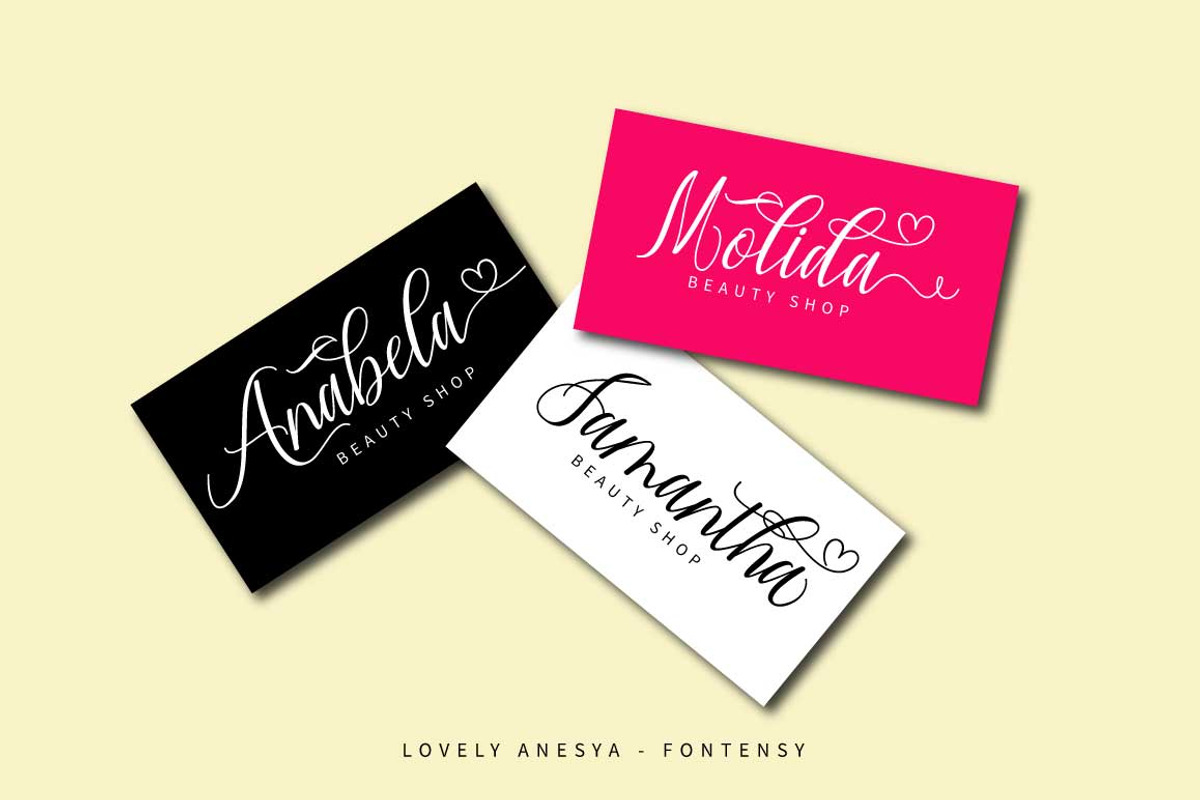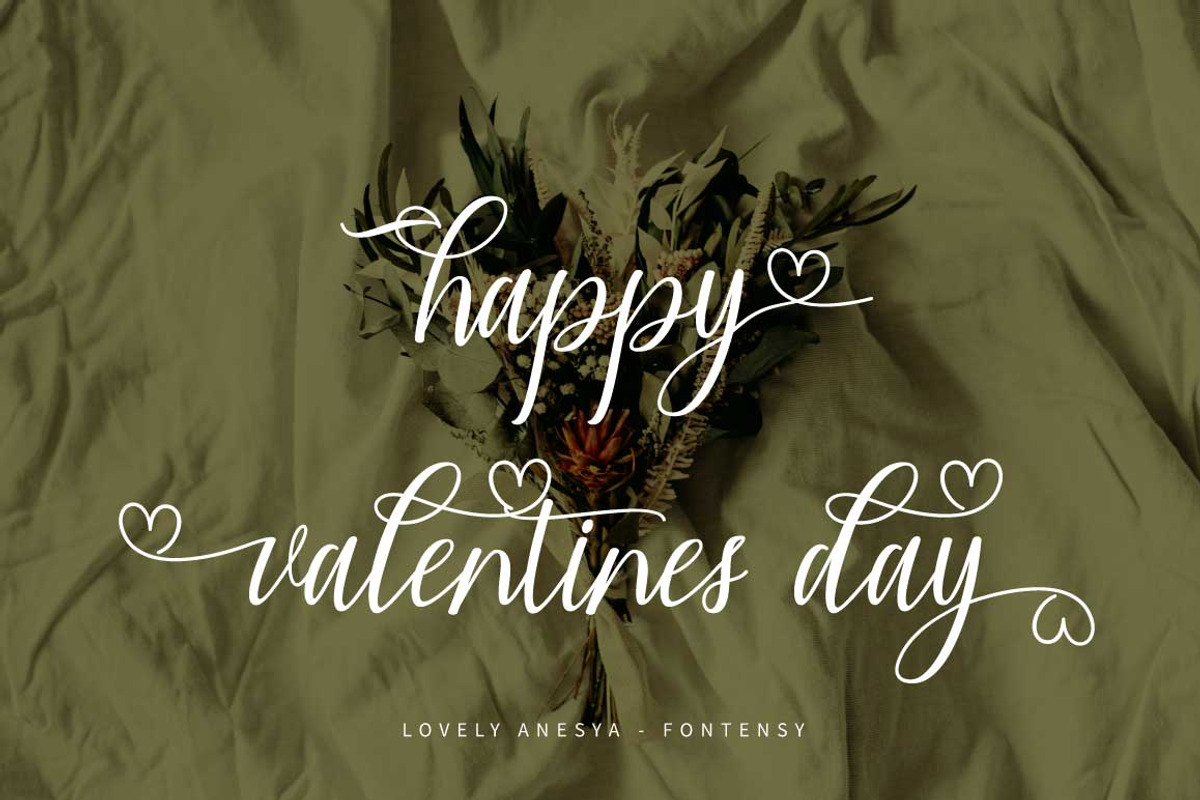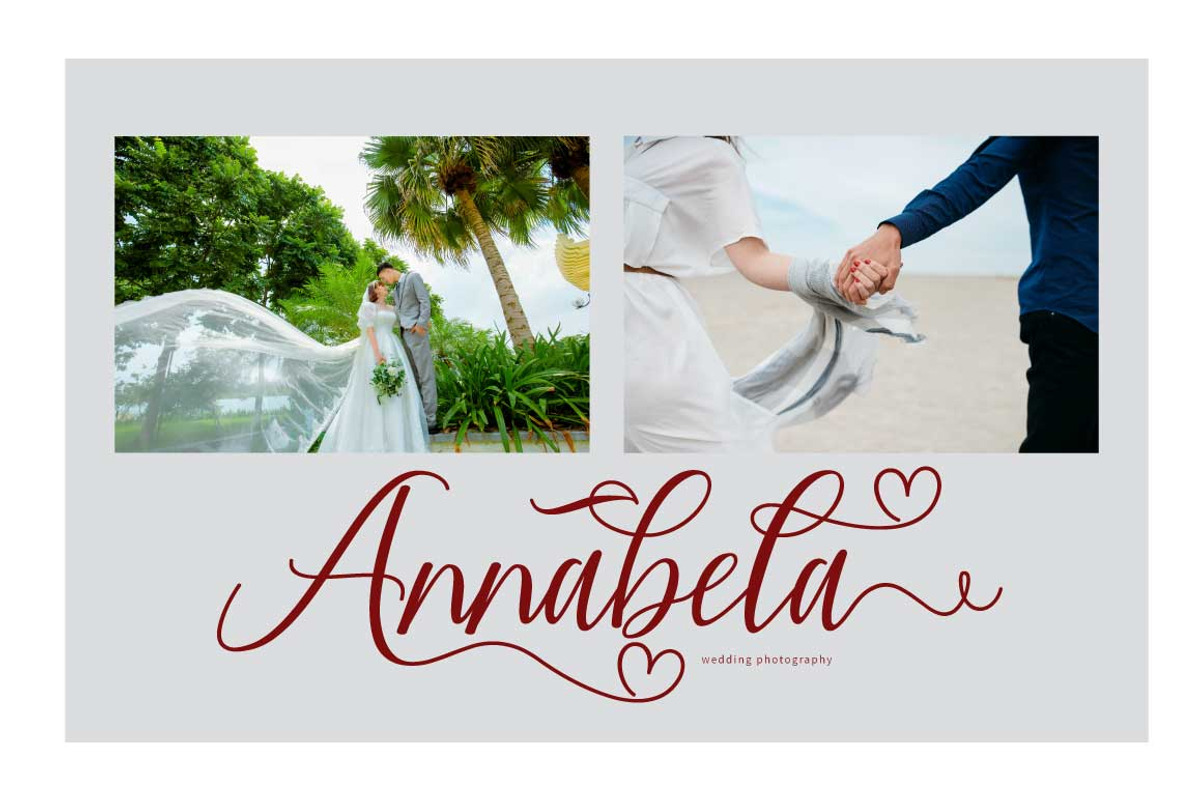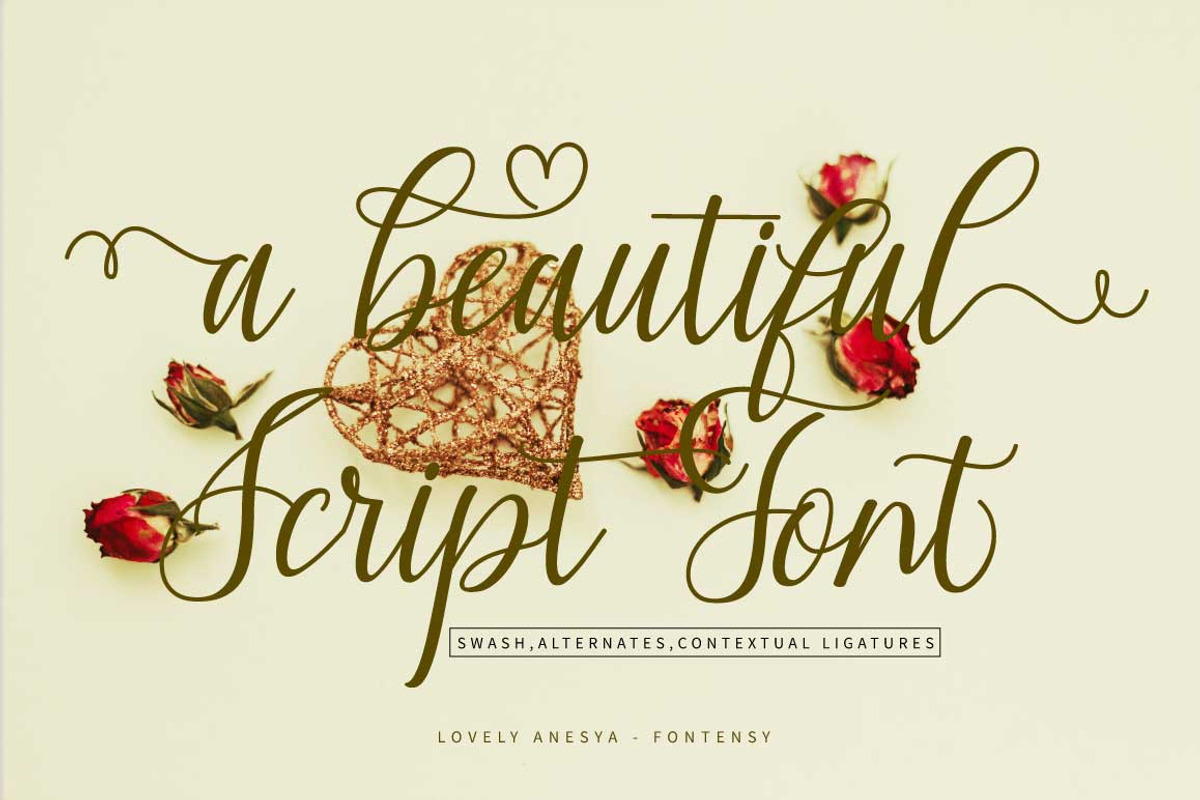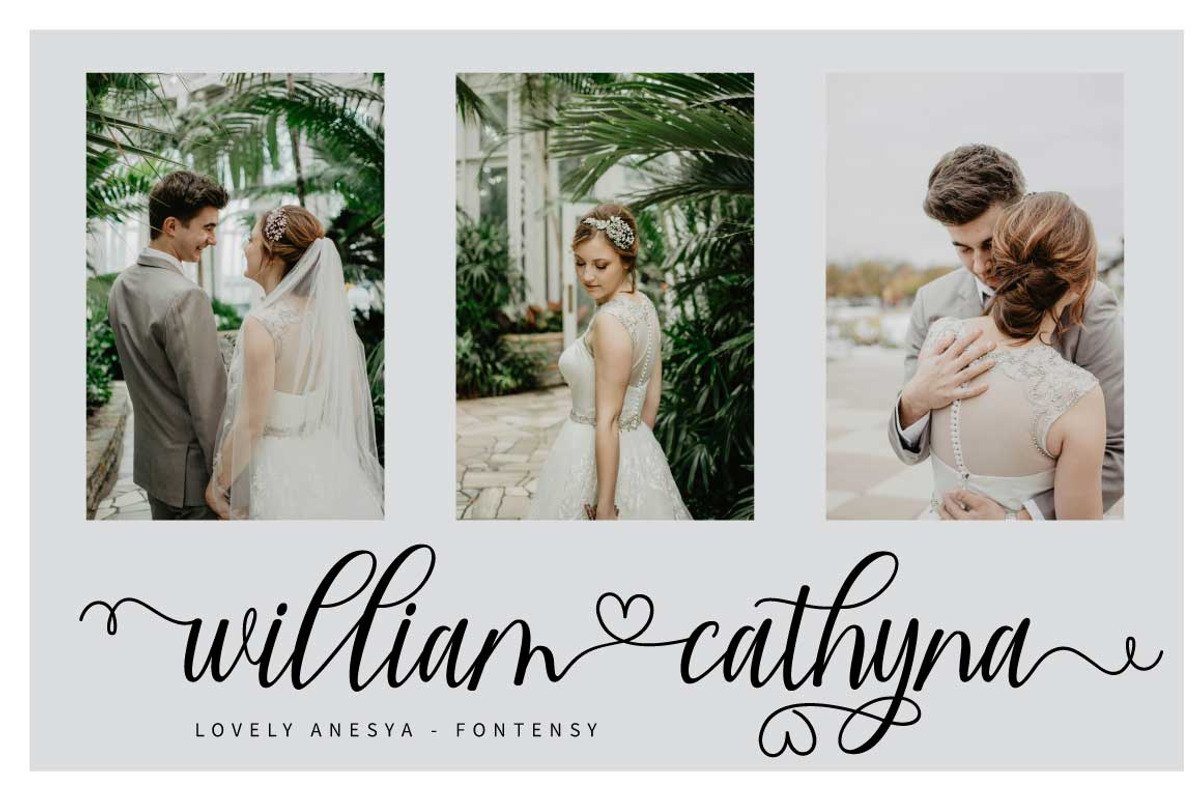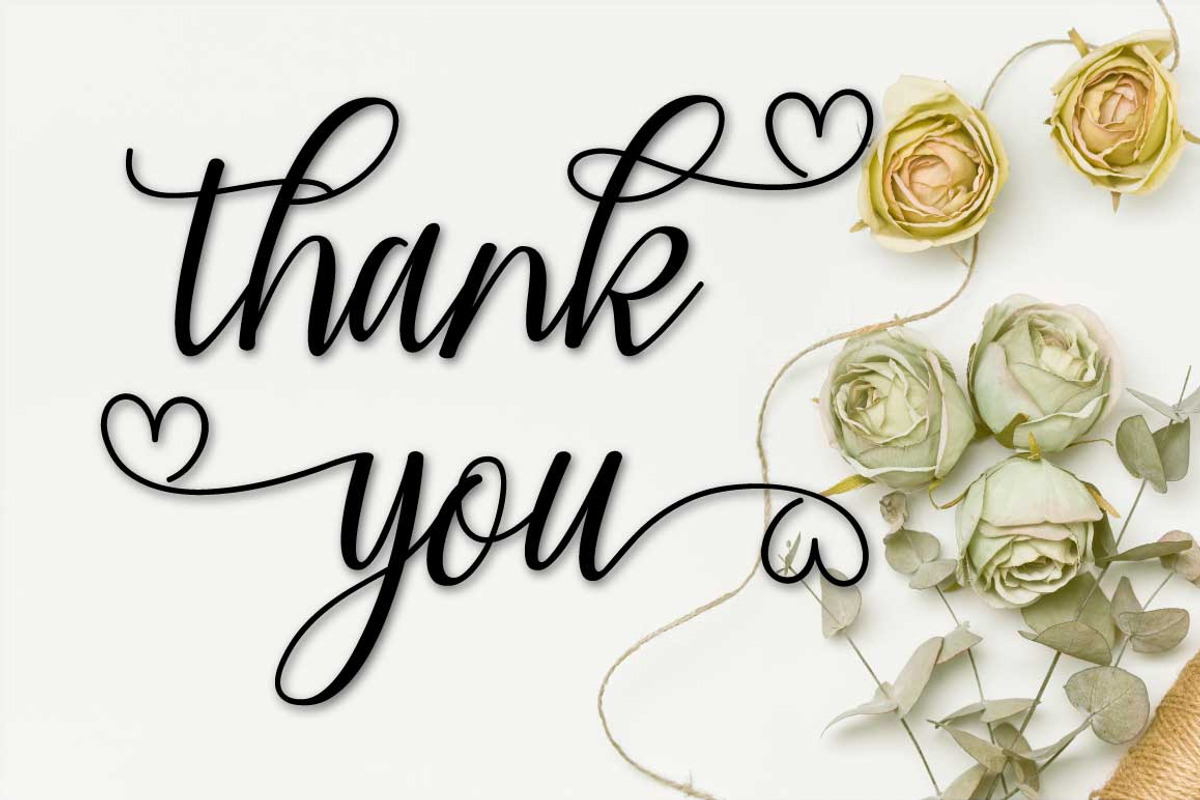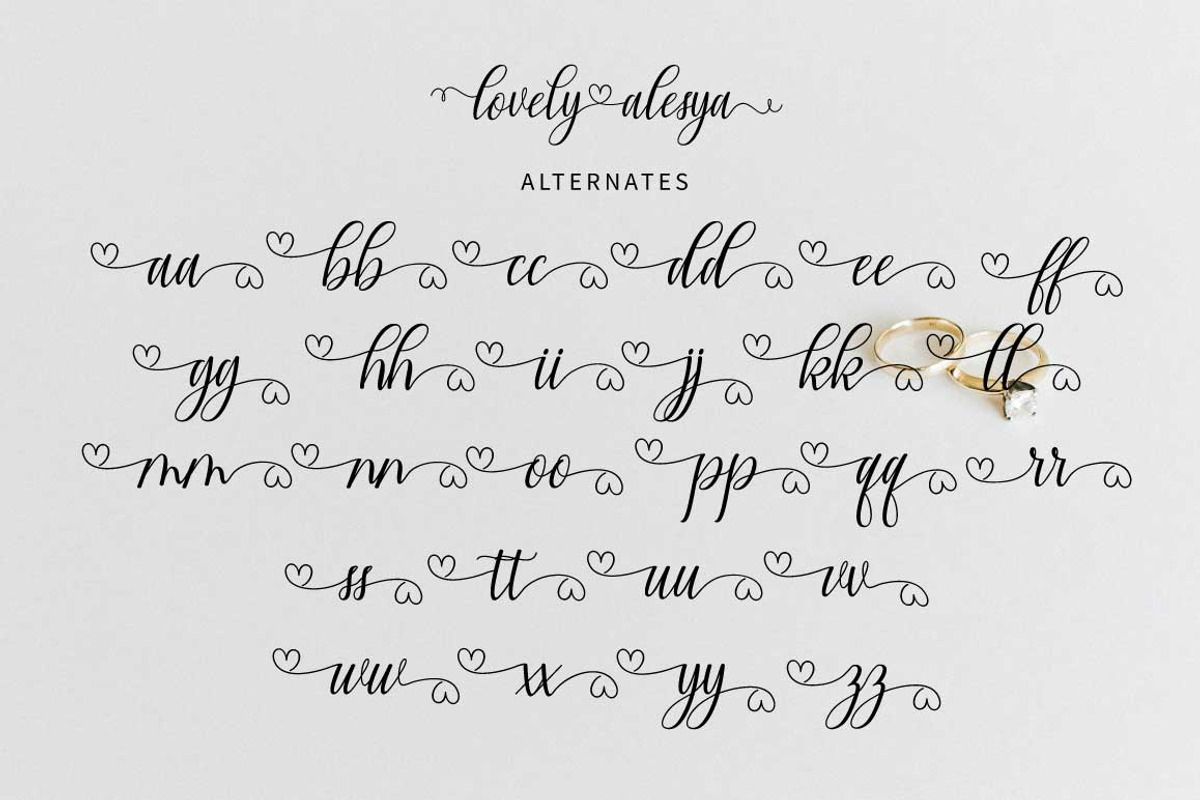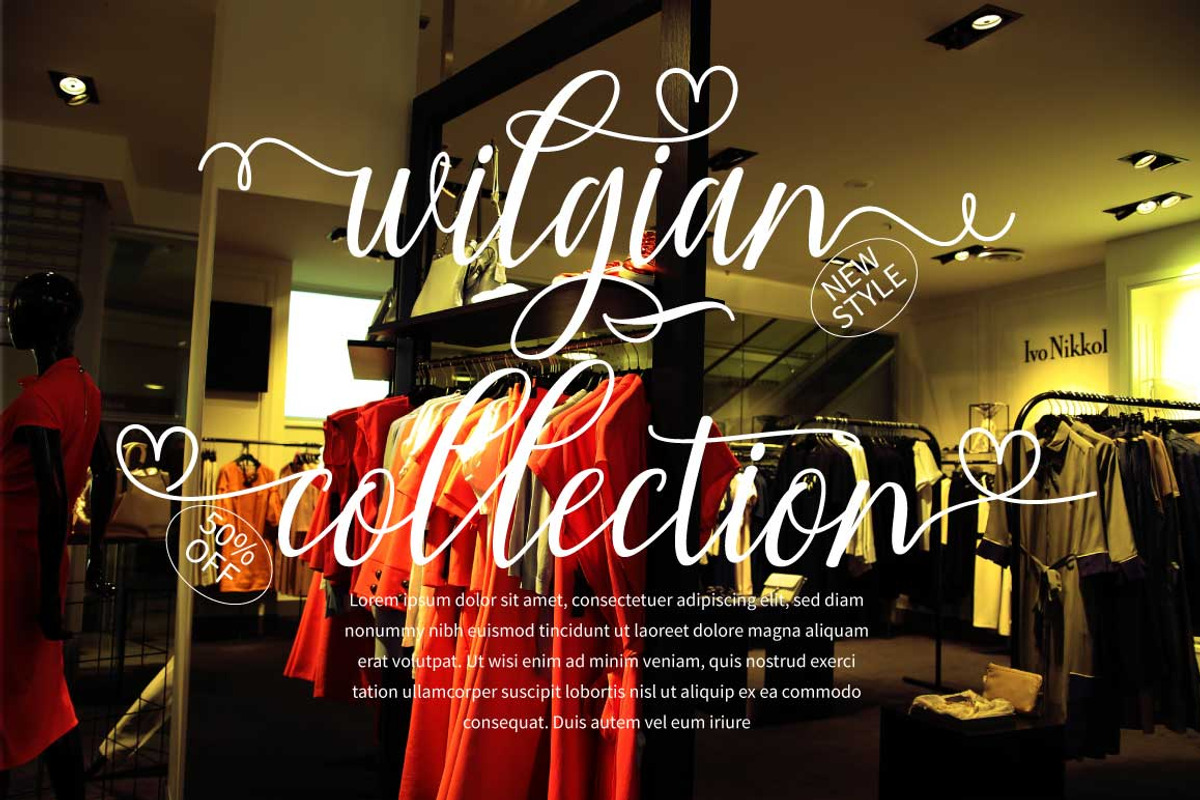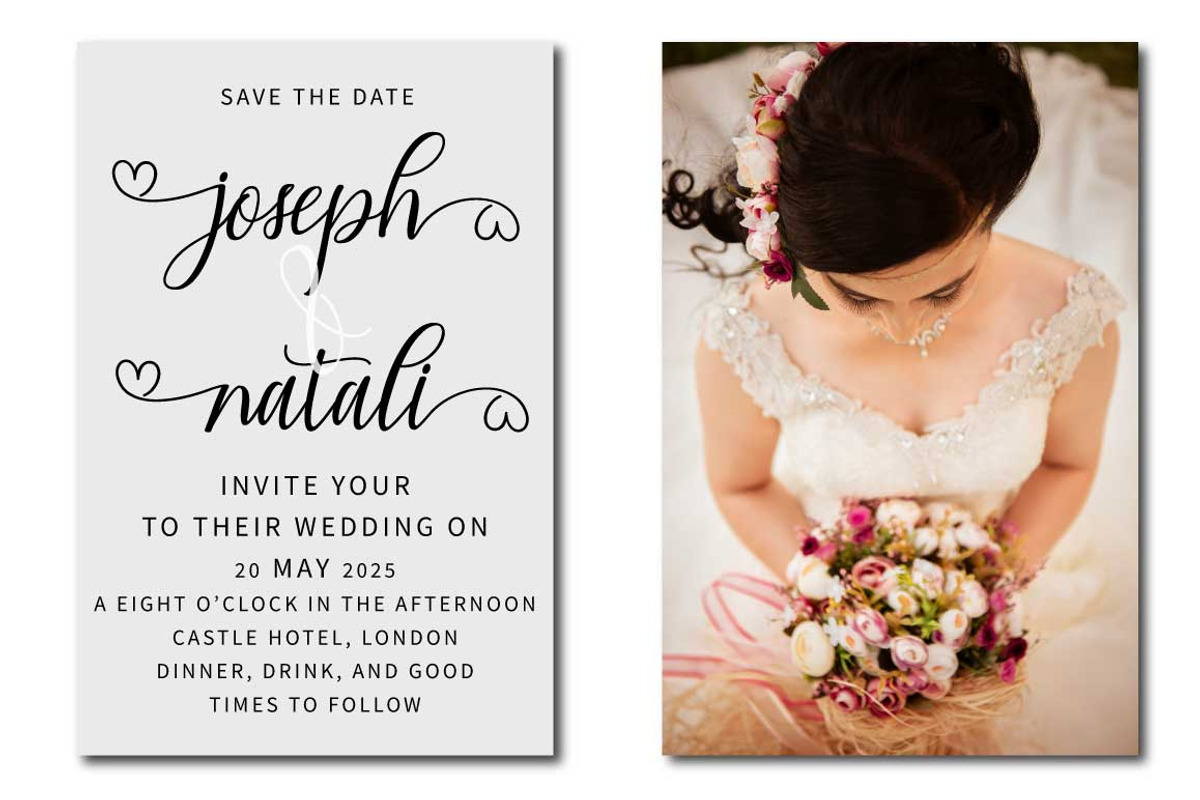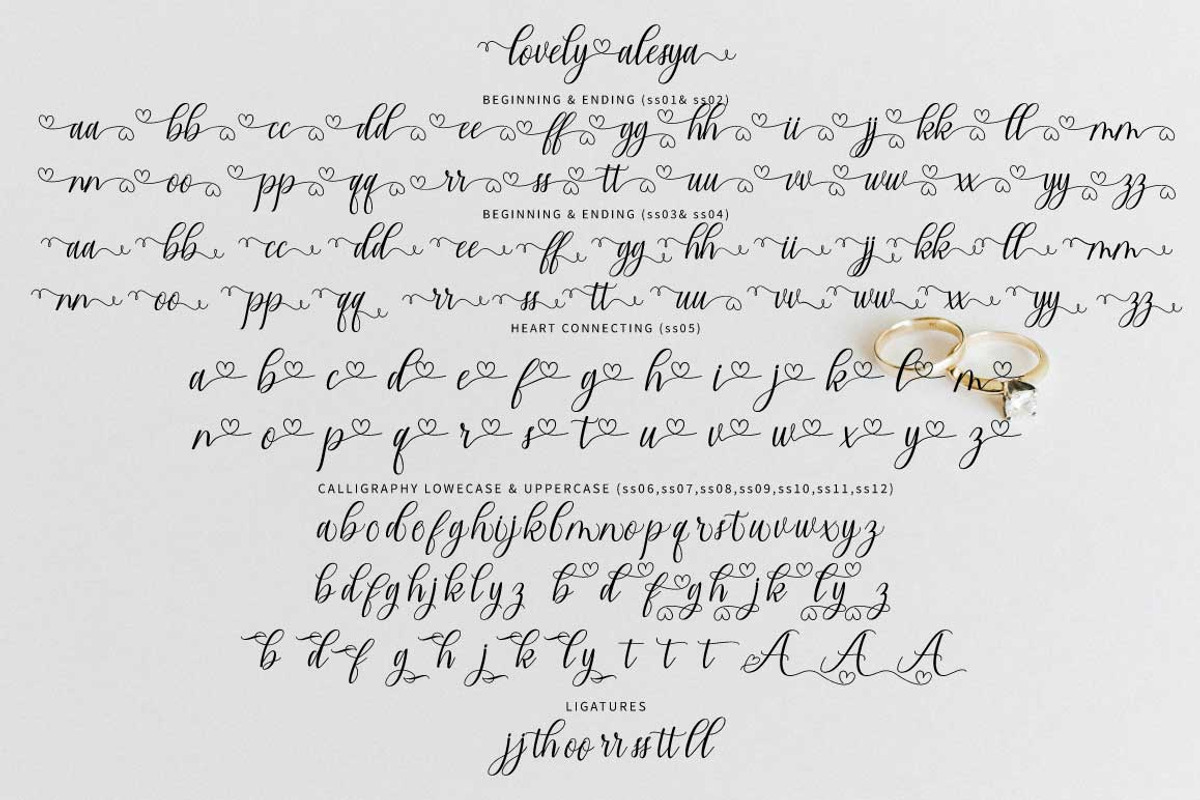
Lovely Alesya Script Font
Introducing Lovely Anesya Script a new fresh & modern script with a handmade calligraphy style, decorative characters and a dancing baseline! So beautiful on invitation like greeting cards, branding materials, business cards, quotes, posters, and more!!
Lovely Anesya Script come with 403+ glyphs. The alternative characters were divided into several Open Type features such as Swash, Stylistic Sets, Stylistic Alternates, Contextual Alternates. The Open Type features can be accessed by using Open Type savvy programs such as Adobe Illustrator, Adobe InDesign, Adobe Photoshop Corel Draw X version, And Microsoft Word. And this Font has given PUA unicode (specially coded fonts). so that all the alternate characters can easily be accessed in full by a craftsman or designer. Lovely Anesya Script: Uppercase & Lowercase International Languange & Symbols Support Punctuation & Number PUA Unicode Range Standard Stylistic Alternates Stylistic Set 1-13 Character Variant Contextual.